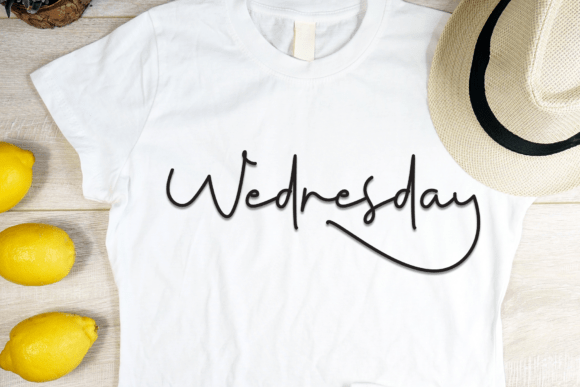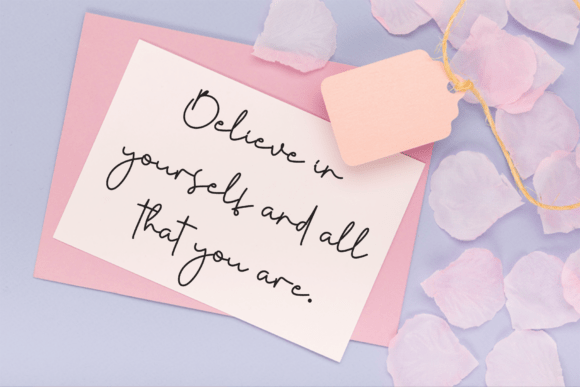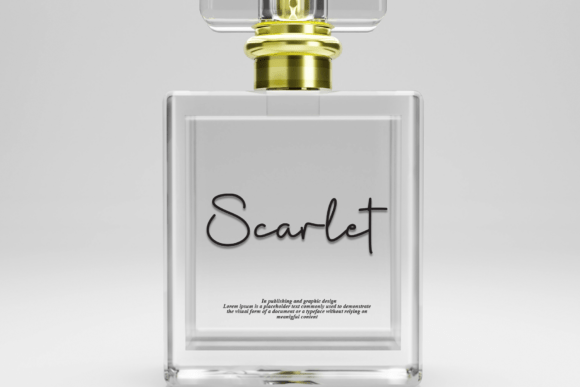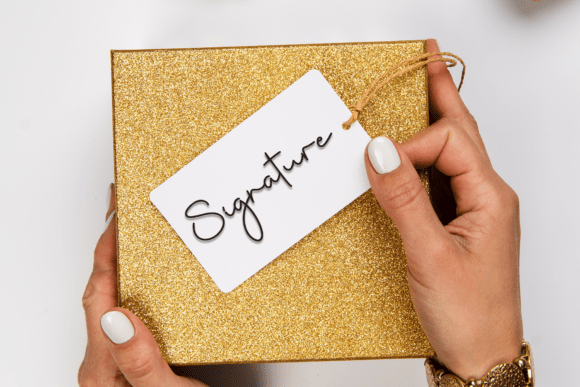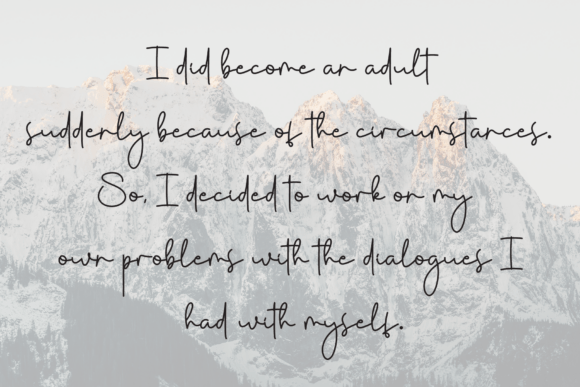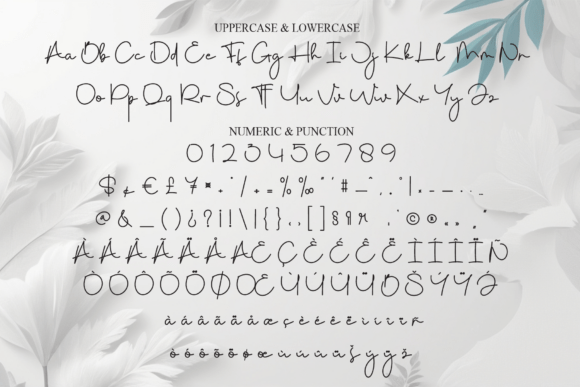
Introducing Anatasya Font: The Charming Script Handwritten Font for Elegant Designs
In the world of typography, a good font can make all the difference in creating a lasting impression. For designers and crafters looking for a charming script handwritten font that brings a personal, elegant touch to their designs, Anatasya Font is an excellent choice. With its smooth curves, natural flow, and slightly casual style, this beautiful font feels like it was written with care, making it perfect for a variety of creative projects.
A Font that Exudes Elegance and Sophistication
Anatasya Font is a stunning script font that boasts a unique blend of elegance and playfulness. Its smooth curves and natural flow give it a organic feel, as if it was penned by hand. The font’s slightly casual style adds a touch of whimsy, making it an excellent choice for designers who want to create a romantic, yet modern aesthetic. Whether you’re working on a wedding invitation, personal branding project, or lifestyle blog graphics, Anatasya Font is sure to impress.
Ideal for Wedding Invitations and Personal Branding
Wedding invitations, engagement cards, and other romantic stationery are perfect applications for Anatasya Font. Its elegant, cursive script exudes love, warmth, and sophistication, making it an ideal choice for couples looking for a unique and personalized way to share their special day with loved ones. Additionally, Anatasya Font is also well-suited for personal branding projects, such as logo design, business cards, and letterheads, where a touch of elegance and professionalism is required.
Perfect for Greeting Cards and Lifestyle Blog Graphics
Anatasya Font is not just limited to wedding invitations and personal branding projects. Its versatility makes it an excellent choice for a wide range of creative projects, including greeting cards, posters, and lifestyle blog graphics. The font’s natural flow and smooth curves make it easy to read, while its slightly casual style adds a touch of personality to any design. Whether you’re creating a blog post, social media graphic, or promotional material, Anatasya Font is sure to add a touch of elegance and sophistication.
Romantic and Modern Aesthetics
One of the standout features of Anatasya Font is its ability to seamlessly blend romantic and modern aesthetics. Its elegant script and smooth curves evoke a sense of nostalgia and romance, while its slightly casual style keeps it feeling fresh and modern. This versatility makes Anatasya Font an excellent choice for designers who want to create a unique and captivating visual identity for their clients or personal projects.
Key Features of Anatasya Font
- Smooth curves and natural flow: Anatasya Font features smooth curves and a natural flow, giving it an organic and handwritten feel.
- Slightly casual style: The font’s slightly casual style adds a touch of whimsy and playfulness to any design.
- Elegant script: Anatasya Font boasts an elegant script that exudes sophistication and romance.
- Versatile: The font is perfect for a wide range of creative projects, from wedding invitations to lifestyle blog graphics.
In conclusion, Anatasya Font is a charming script handwritten font that brings a personal, elegant touch to any design. Its smooth curves, natural flow, and slightly casual style make it perfect for wedding invitations, personal branding, greeting cards, and lifestyle blog graphics. With its versatility and ability to blend romantic and modern aesthetics, Anatasya Font is an excellent choice for designers and crafters looking to add a touch of elegance and sophistication to their creative projects.